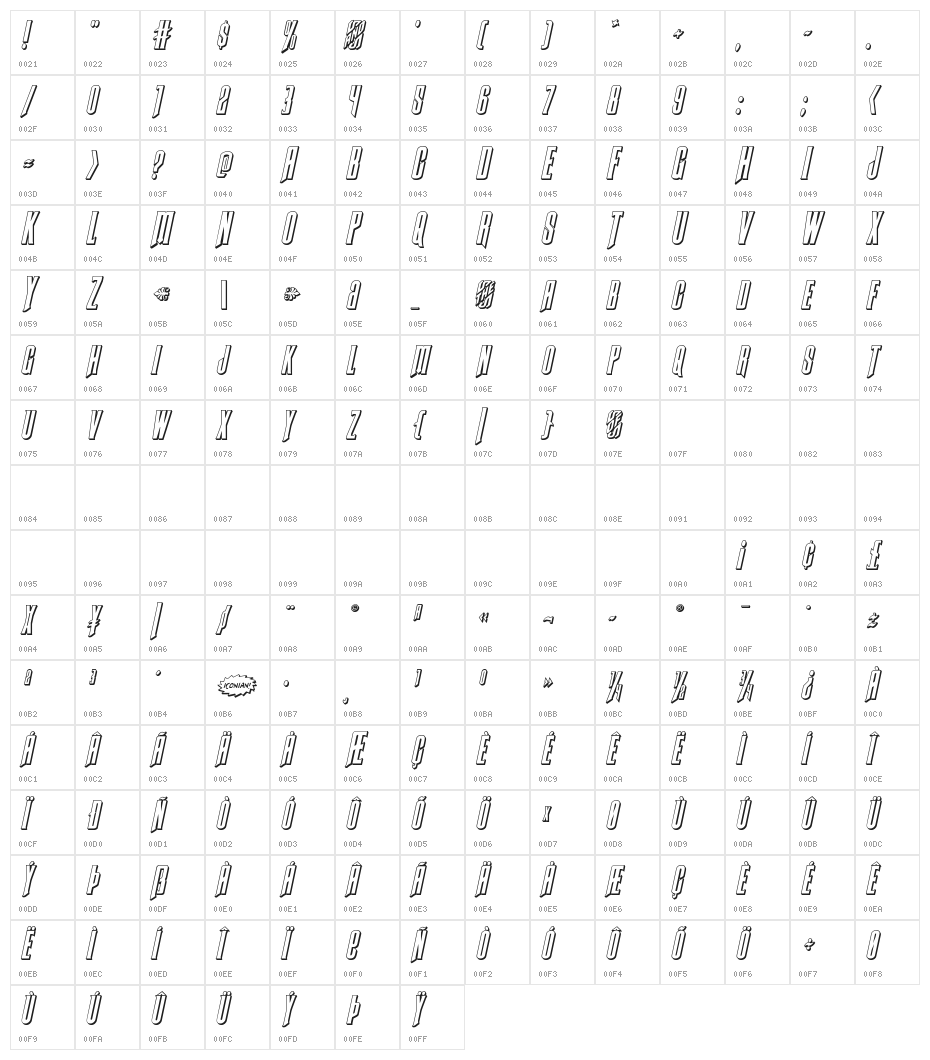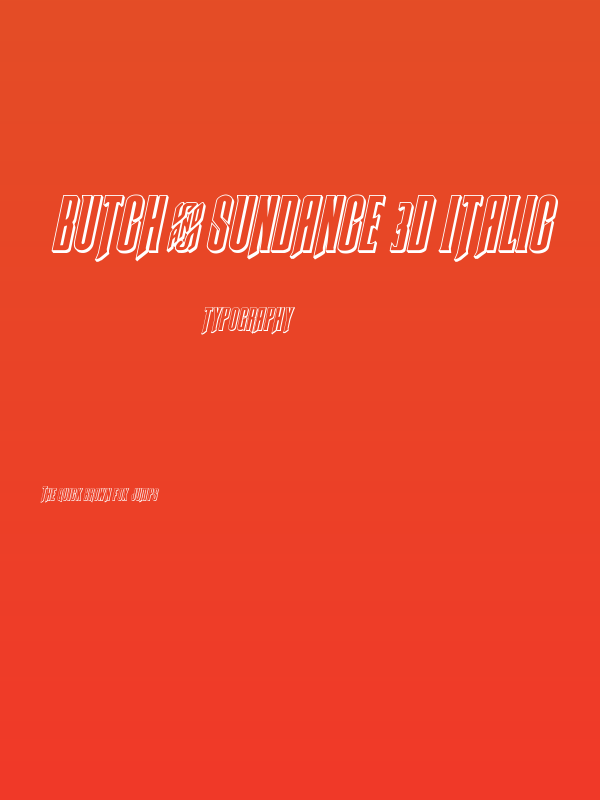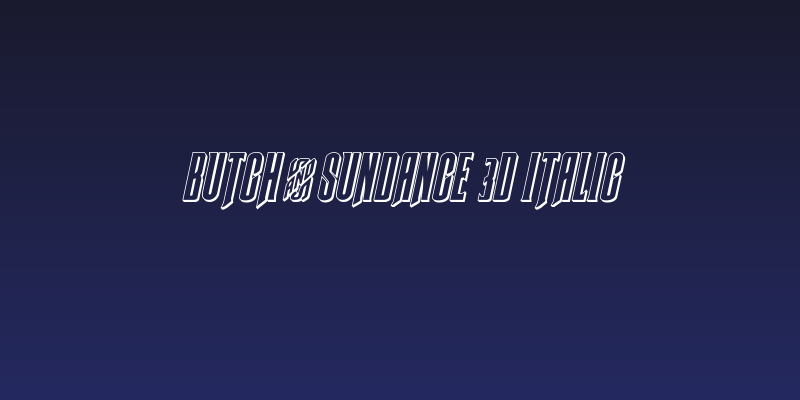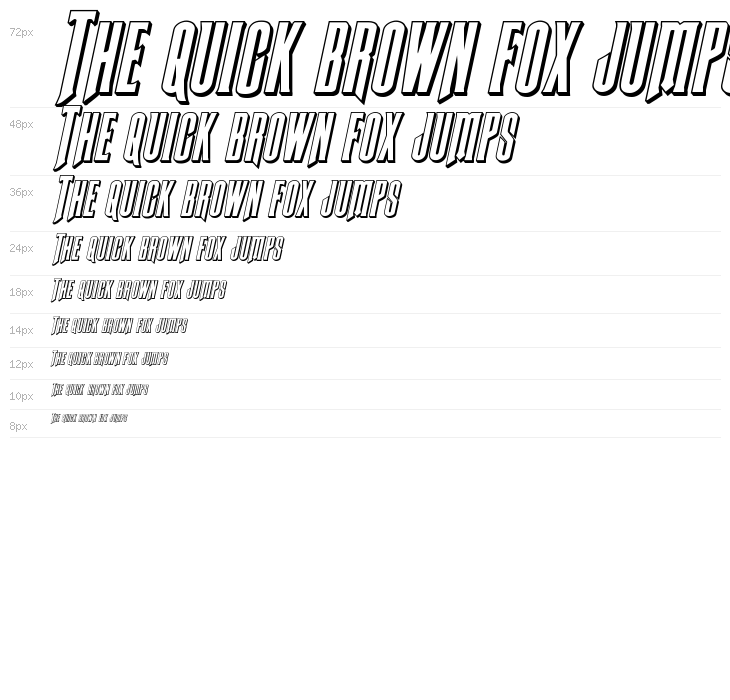
Butch & Sundance 3D Italic Font
Butch & Sundance 3D Italic Description
This font features a bold, italicized style with a distinct 3D effect, giving it a dynamic and eye-catching appearance. The letters are elongated and slightly condensed, with sharp angles and clean lines that create a sense of movement and energy. The uppercase and lowercase letters maintain a consistent style, while the numbers and special characters complement the overall design. The font's strong presence makes it ideal for impactful headlines and attention-grabbing designs.
| Proposed Projects | Ideal for posters, logos, video game titles, and any project requiring a bold, energetic typeface. |